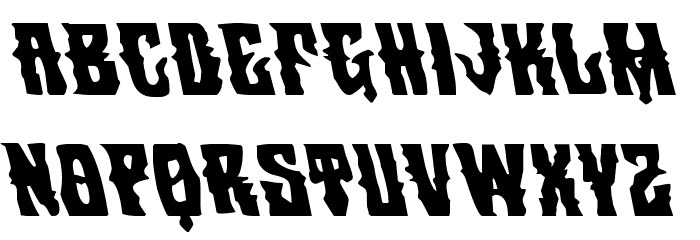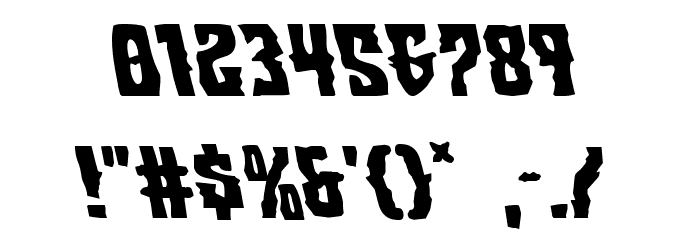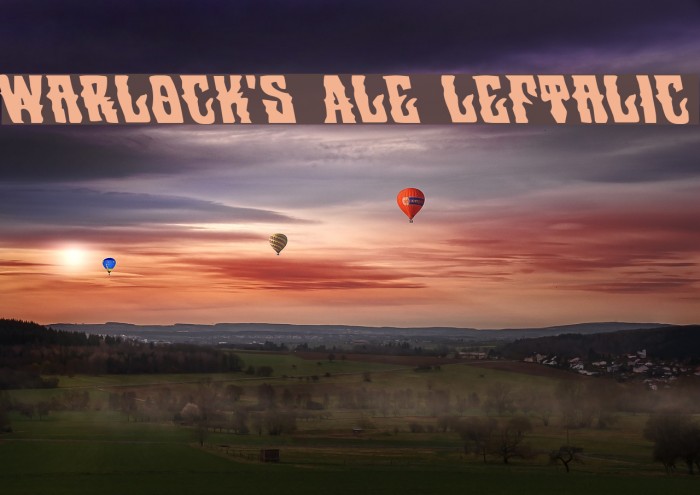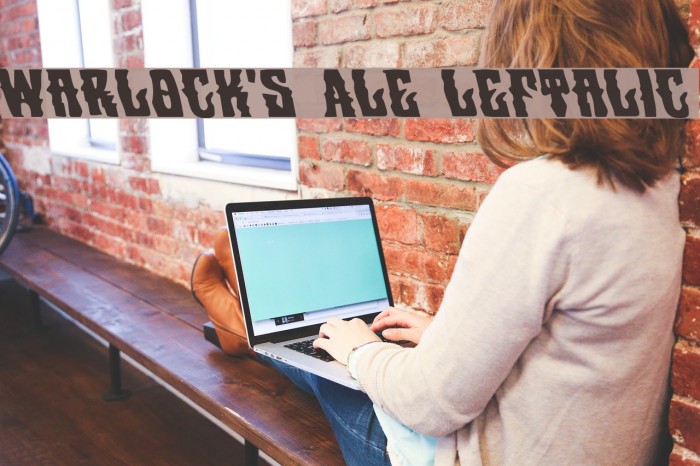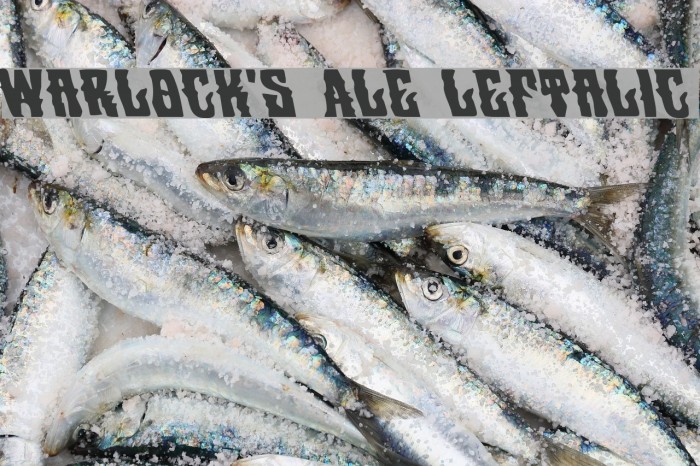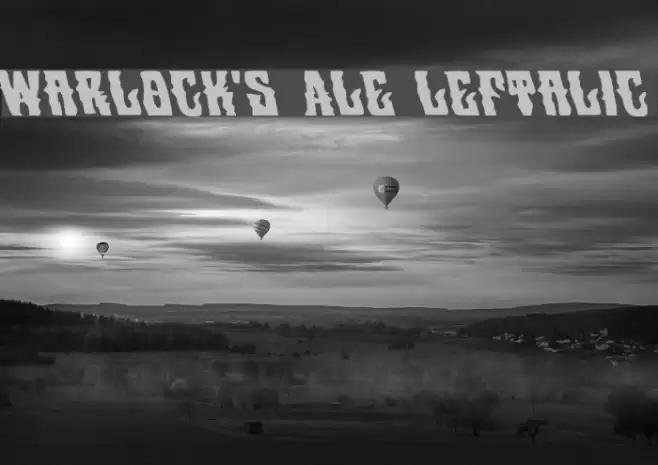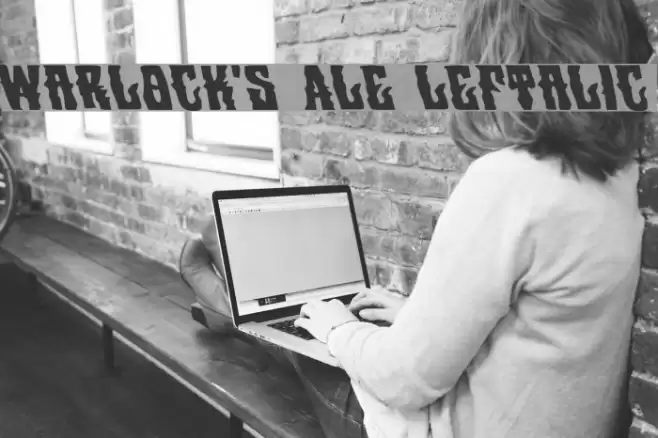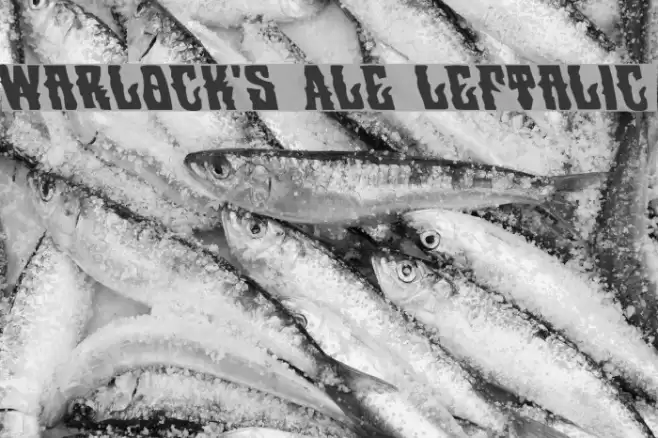
Warlock's Ale Leftalic Font
This font features a bold and dramatic style with sharp, angular edges and a slightly distorted appearance, giving it a unique and edgy look. The characters are heavily stylized, with irregular shapes and a sense of movement, reminiscent of a gothic or fantasy theme. The uppercase and lowercase letters maintain a consistent design, while the numerals and special characters follow the same bold and dynamic aesthetic. The font's distinctiveness makes it stand out, ideal for projects that require a strong visual impact.
A bold, angular, and edgy font with a gothic flair.
- Proposed Projects: Perfect for fantasy-themed posters, video game titles, Halloween event flyers, or any project needing a dramatic and eye-catching typeface.